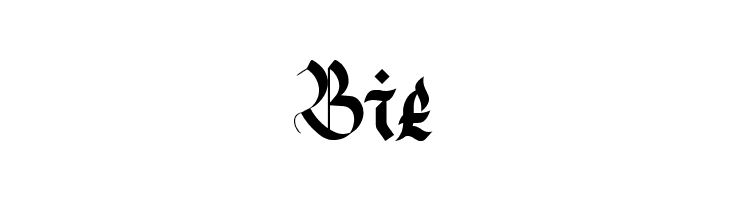
• Daniela Italic Bold
( Fonts by David Espinosa - http://issuu.com/davidespinosa5/ )
A modern, bold italic font with sleek, elongated characters.
• Daniela Italic Bold
A sleek, italicized font with a modern and elegant style.
• Darah Erc
A bold, dripping font ideal for horror themes.
• Dark Alley
( Fonts by Blackletter Studio )
A bold, gothic-inspired font with intricate details and high contrast, perfect for dramatic and elegant designs.
• Dark Gospel
( Fonts by Blackletter Studio )
A gothic, medieval-inspired font with intricate and bold design elements.
• Dark Hammer
A bold, dynamic script font with fluid strokes and a sense of movement.
• Dark Ministry
A bold, modern font with elongated, narrow characters and a geometric structure.
• Dark Opera
( Fonts by Blackletter Studio )
A dramatic, gothic font with intricate, ornate letterforms and medieval calligraphy influences.
• Darknight Personal Use
• Darksite
( Fonts by Figuree Studio )
A bold, calligraphic font with dramatic strokes and sharp edges.